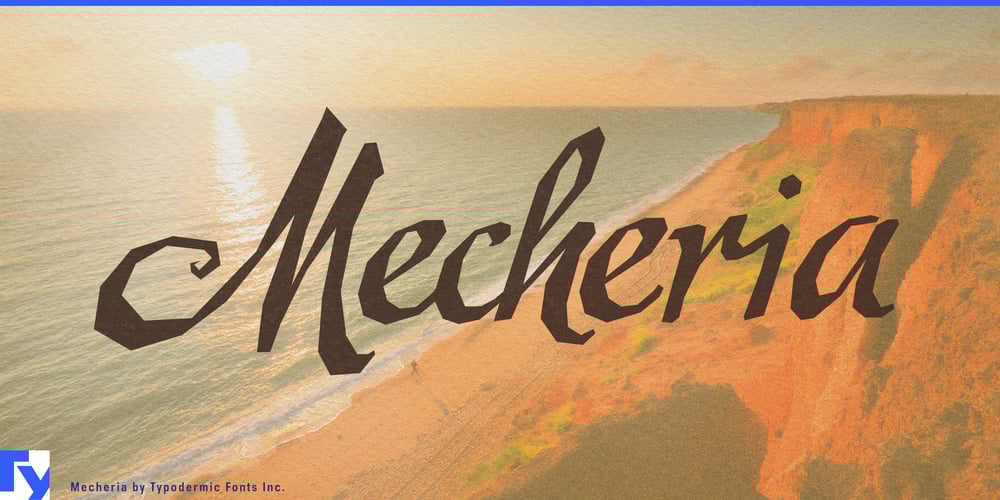
Mecheria Font Family was designed by Ray Larabie and published by Typodermic. Mecheria contains 1 styles and family package options. Indulge in the allure of Mecheria, a typeface that weaves a tapestry of mystery and elegance with every stroke. This enigmatic script font captivates the eye with its angular design and sensual swashes, striking a delicate balance between gothic intrigue and exotic charm. Mecheria’s subtly rounded curves pulse with an energy that’s impossible to ignore, inviting viewers to linger and explore.Drawing inspiration from the timeless Amanda typeface of 1939, Mecheria breathes new life into classic letterforms. Its connected script style flows effortlessly, creating a sense of fluid motion that elevates any design. Each character is a work of art, meticulously crafted to convey luxury and sophistication in equal measure. For designers seeking to make a statement, Mecheria is an indispensable tool. Its unique blend of angular precision and flowing swashes makes it ideal for high-end branding, exclusive event invitations, and packaging that demands attention. From fashion labels to artisanal products, Mecheria lends an air of distinction to any project it graces. Mecheria speaks volumes in multiple tongues, effortlessly adapting to a vast array of Latin-based European writing systems. Its linguistic versatility extends from the fjords of Norway to the plains of Africa, encompassing languages as diverse as Luxembourgish, Swahili, and Zapotec.Don’t let your creations whisper when they could sing. Choose Mecheria and watch as your designs come alive with an irresistible blend of mystery and allure. This typeface doesn’t just adorn your page—it transforms it into a captivating visual experience that lingers in the mind long after the first glance.